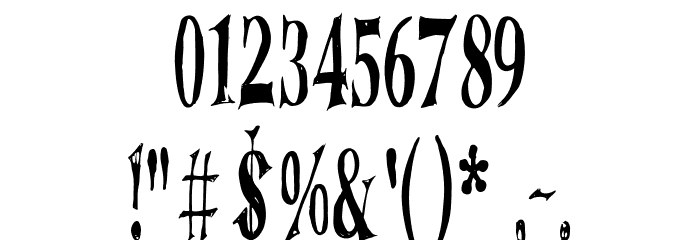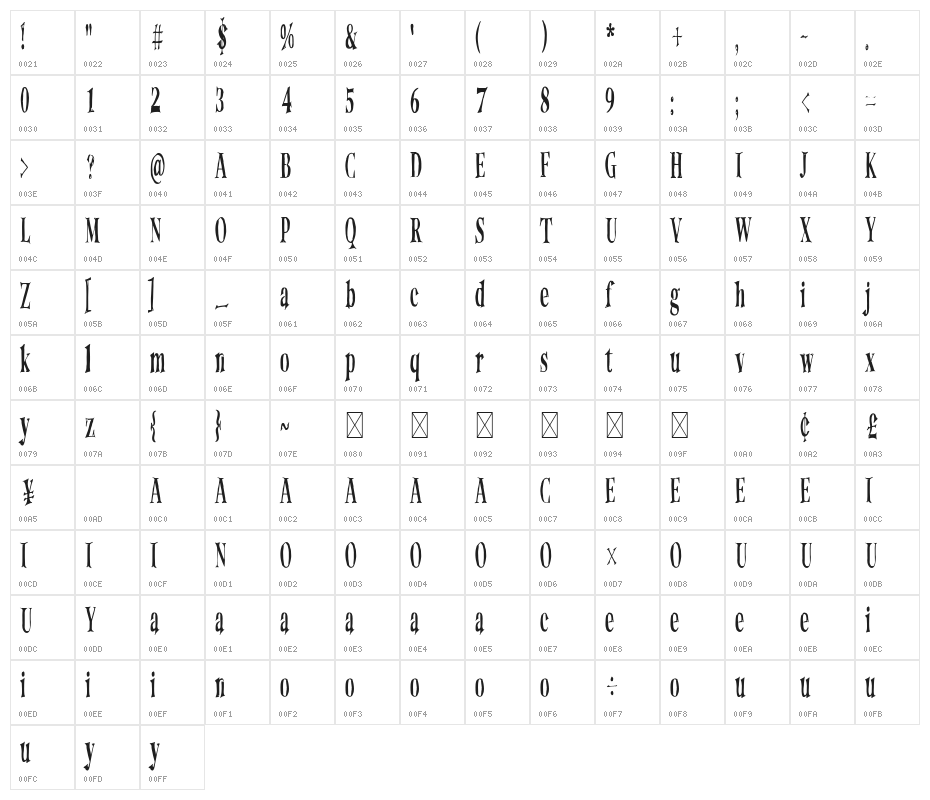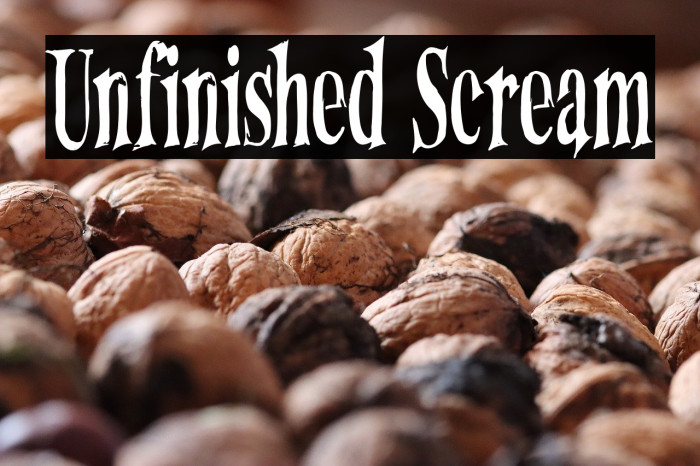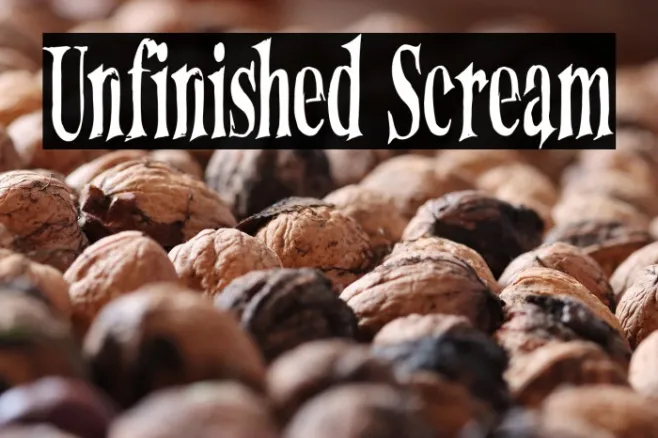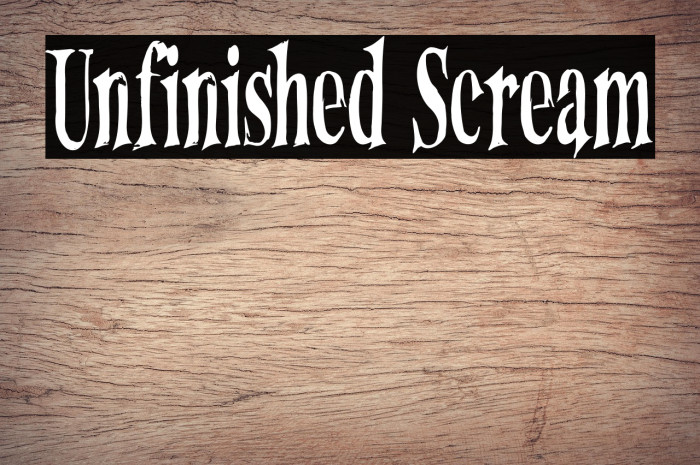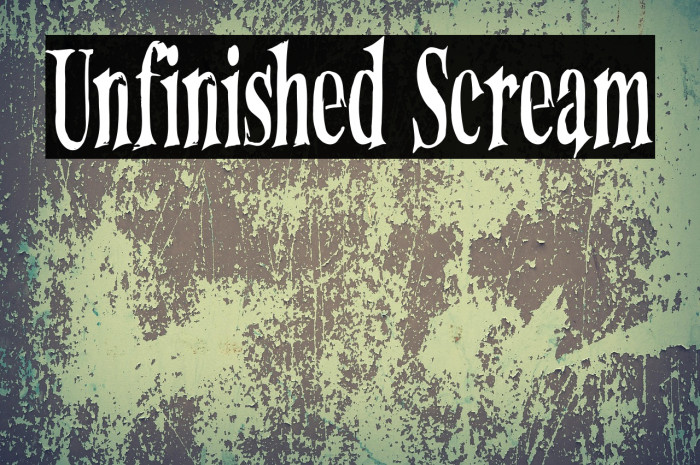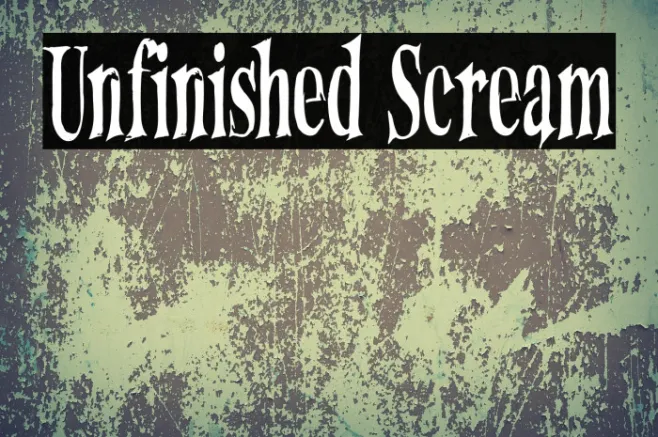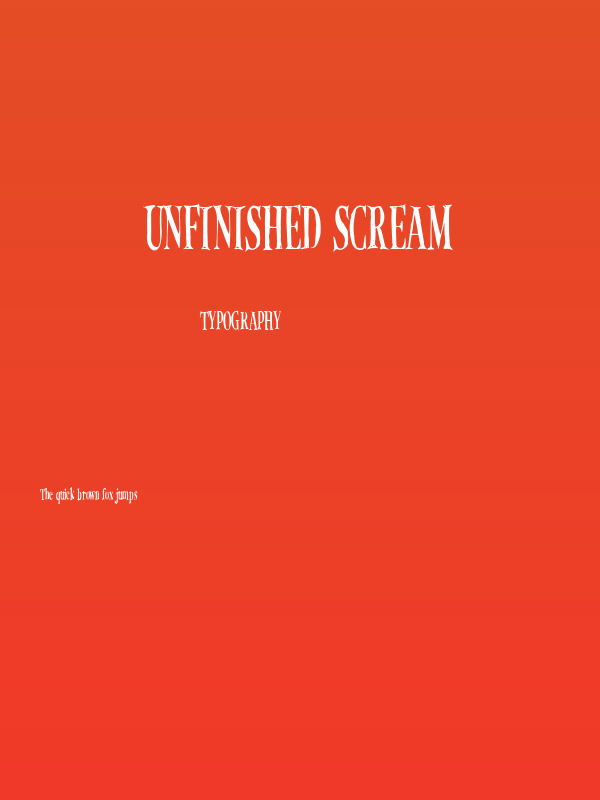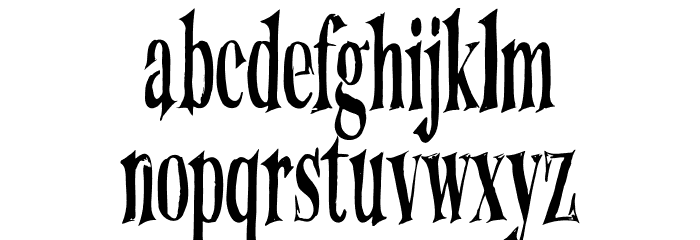
Unfinished Scream Font
Unfinished Scream Description
This font features a dramatic and expressive style, characterized by sharp, uneven edges and a hand-drawn appearance. The letters have a slightly distorted, elongated form, giving them a unique, almost eerie aesthetic. The uppercase and lowercase letters maintain a consistent style, with exaggerated serifs and varying stroke widths that add to the font's dynamic look. Numbers and special characters are crafted with the same attention to detail, ensuring a cohesive appearance across all glyphs. This font's distinct personality makes it suitable for projects that require a bold and unconventional typeface.
| Proposed Projects | Ideal for horror-themed designs, movie posters, album covers, and any project needing a bold, expressive typeface. |